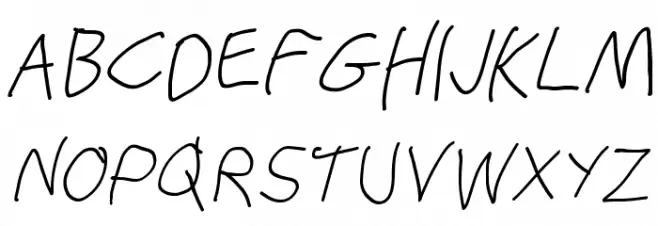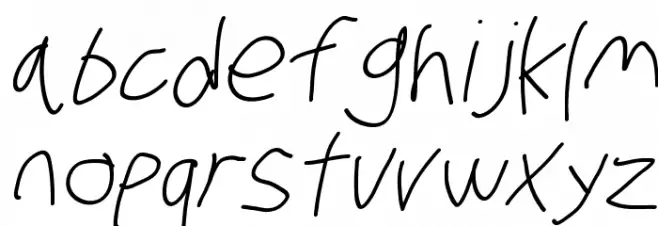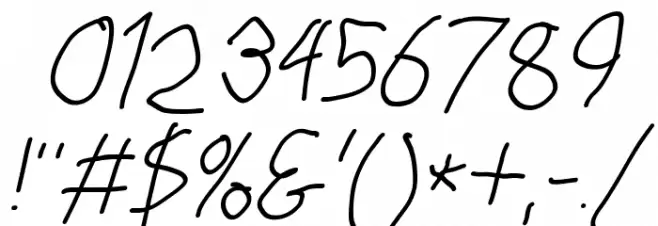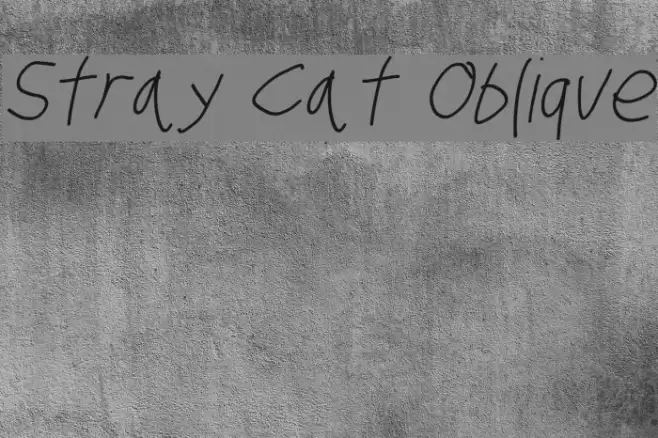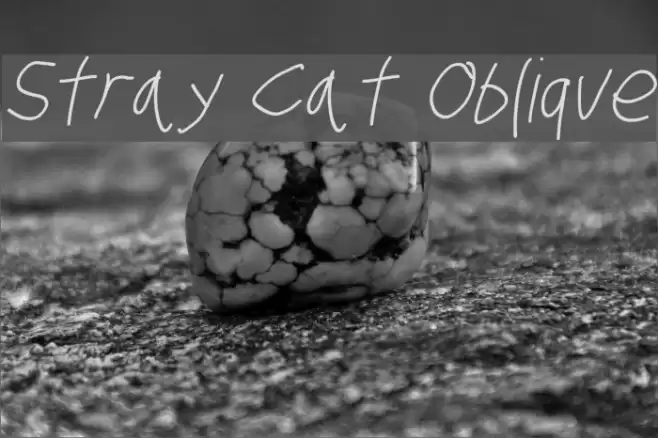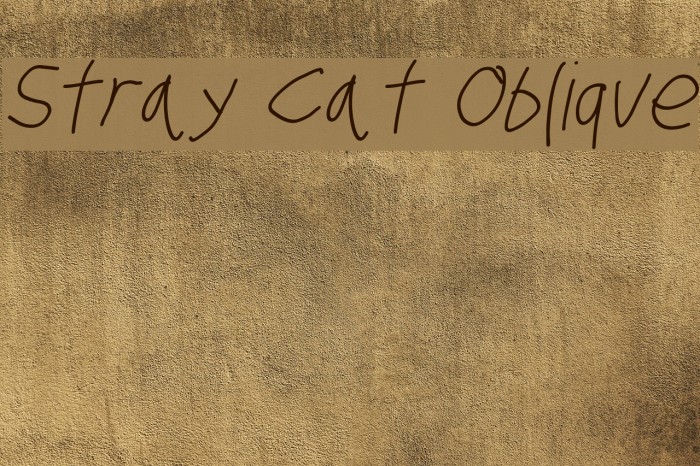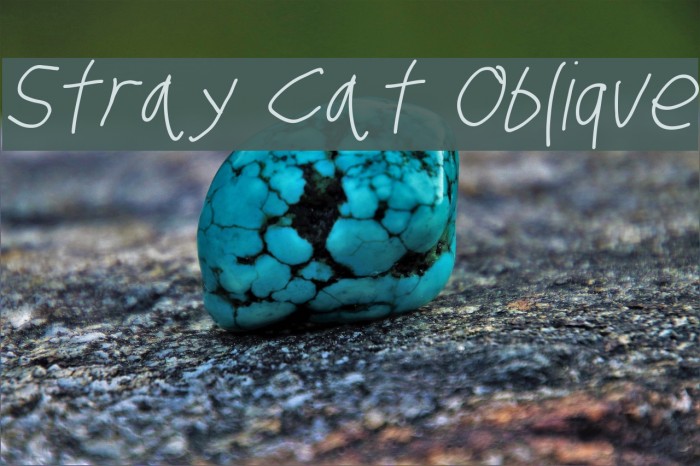
Stray Cat Oblique
This font features a casual, handwritten style with a playful and informal appearance. The letters are slightly slanted, giving it an oblique look that adds to its dynamic feel. The strokes are uneven, mimicking the natural flow of handwriting, which adds a personal touch. The characters are well-spaced, ensuring readability while maintaining a relaxed vibe. The font includes both uppercase and lowercase letters, numbers, and a variety of special characters, making it versatile for different uses.
A casual, handwritten font with an oblique, playful style.
- Proposed Projects: Ideal for personal notes, informal invitations, children's book illustrations, and creative projects that require a personal touch.
- Overall Style: Casual, Playful
- Use Case: Informal text, Creative projects, Personal notes